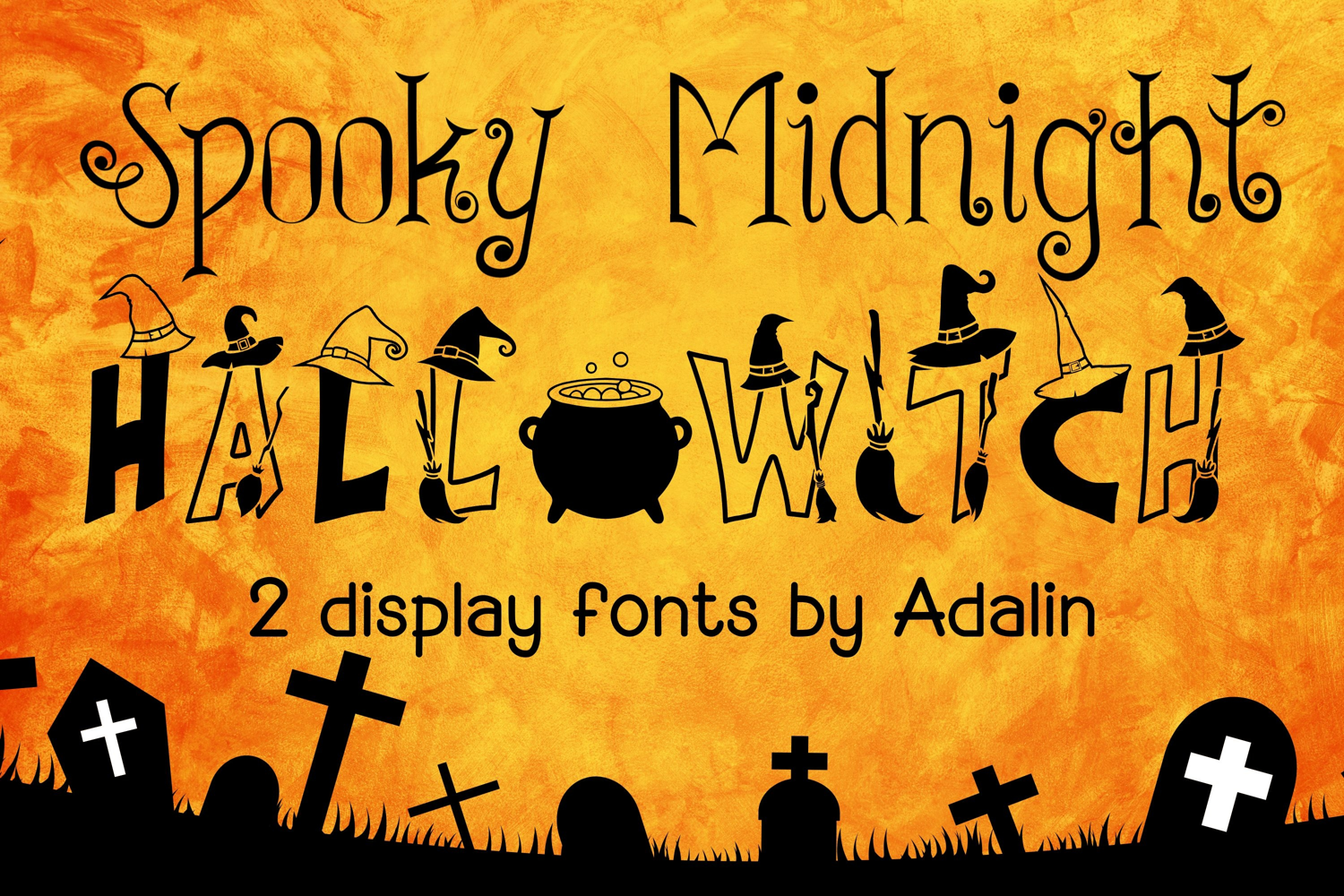
Spooky Midnight iand Hallowitch are whimsical Halloween display fonts with curly flourishes and eerie elegance. Perfectly suited for spooky season designs, this font adds a playful yet mysterious vibe to your posters, invitations, party flyers, trick-or-treat signs, social media graphics, and more.
Designed with Halloween in mind, it features quirky letterforms that evoke the charm of haunted mansions, flying bats, and midnight ghost stories. Ideal for crafters, designers, and anyone who wants to bring fun and fright into their creative work!